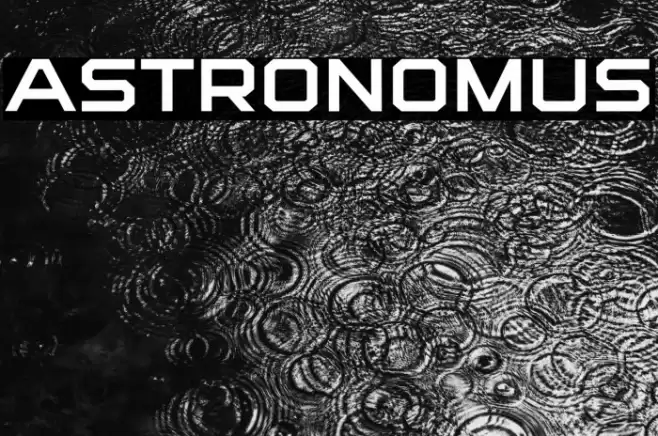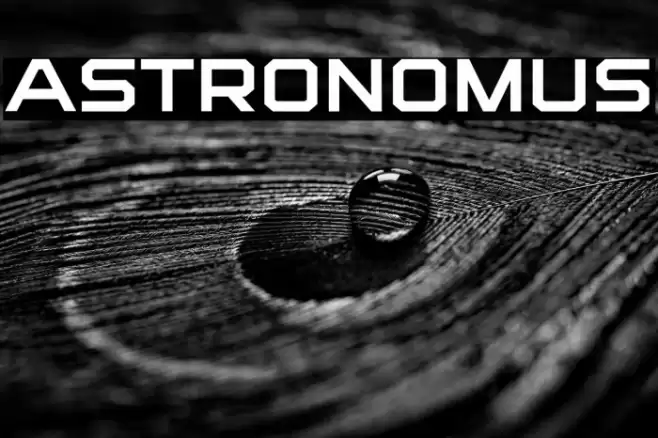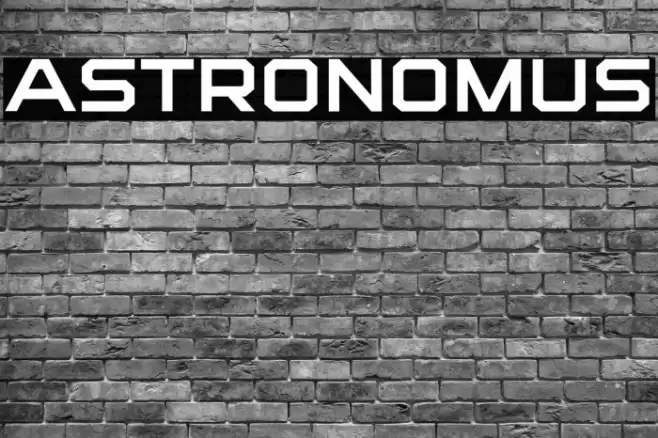
Astronomus Font
Astronomus Description
This font features a bold, geometric design with a futuristic and technical aesthetic. The characters are constructed with straight lines and sharp angles, giving it a modern and digital feel. The uppercase letters are uniform in height, while the numbers are distinct and easily readable. The font's structure is consistent, with a strong presence that commands attention. Its clean lines and lack of curves make it ideal for projects that require a contemporary and cutting-edge look.
A bold, geometric font with a futuristic and technical style from Regular fonts.
- Proposed Projects: Ideal for technology branding, video game titles, sci-fi movie posters, and digital interfaces.